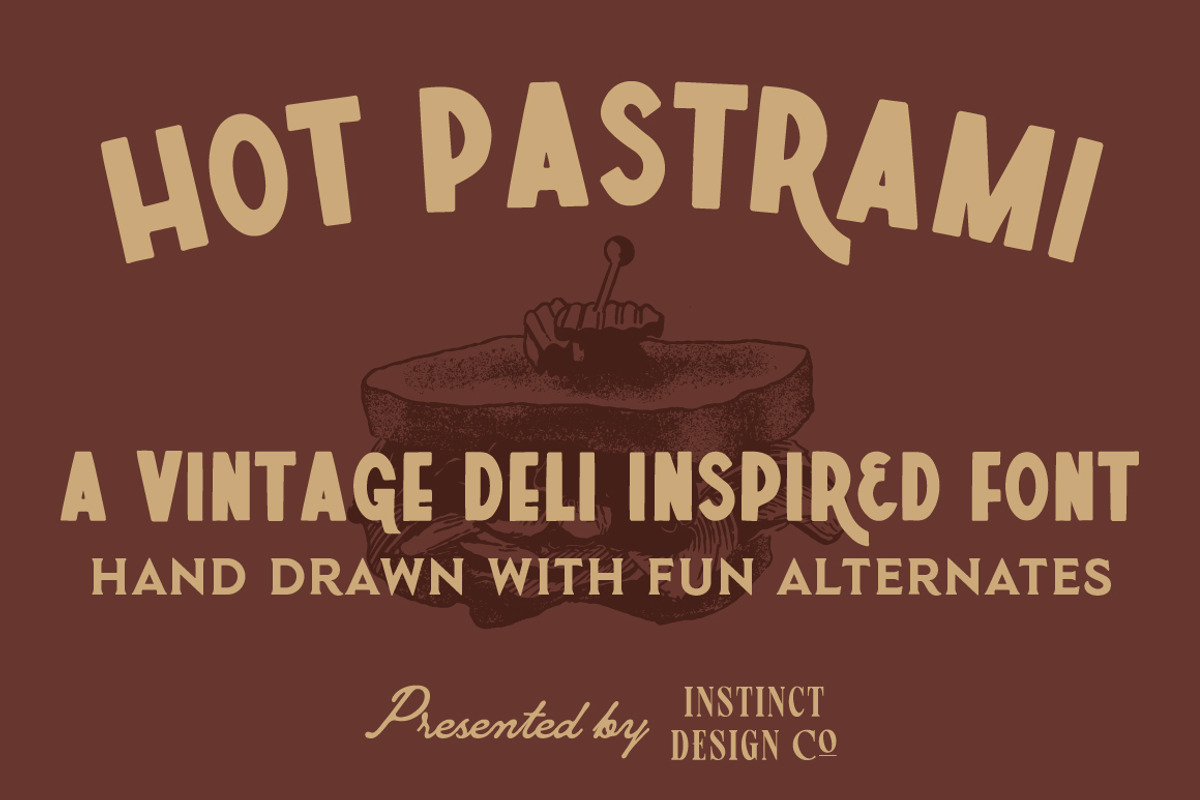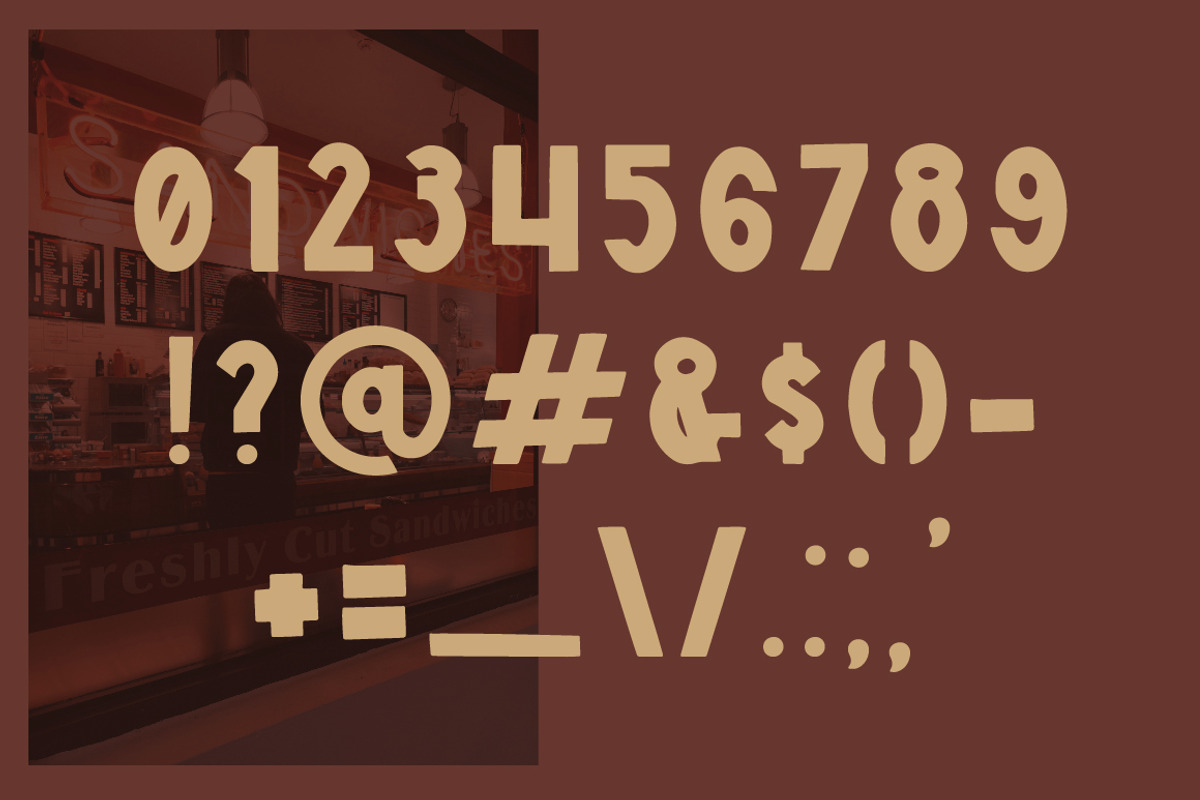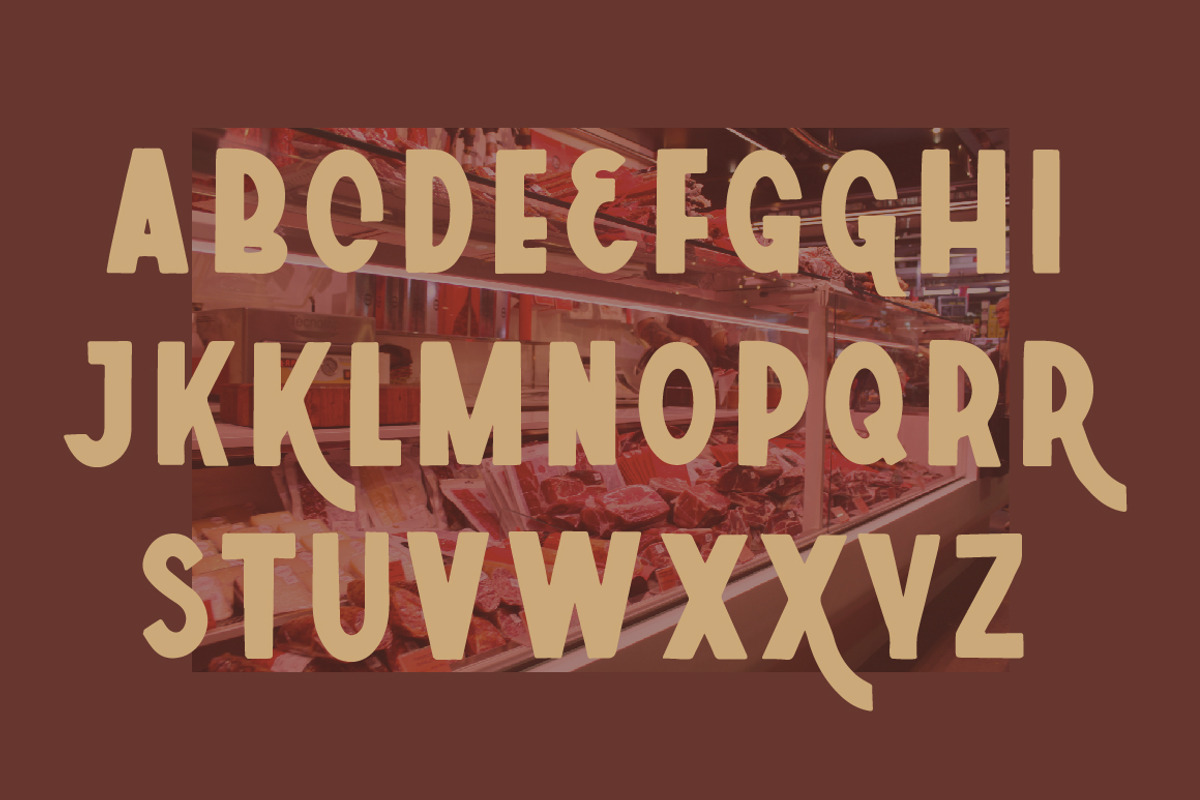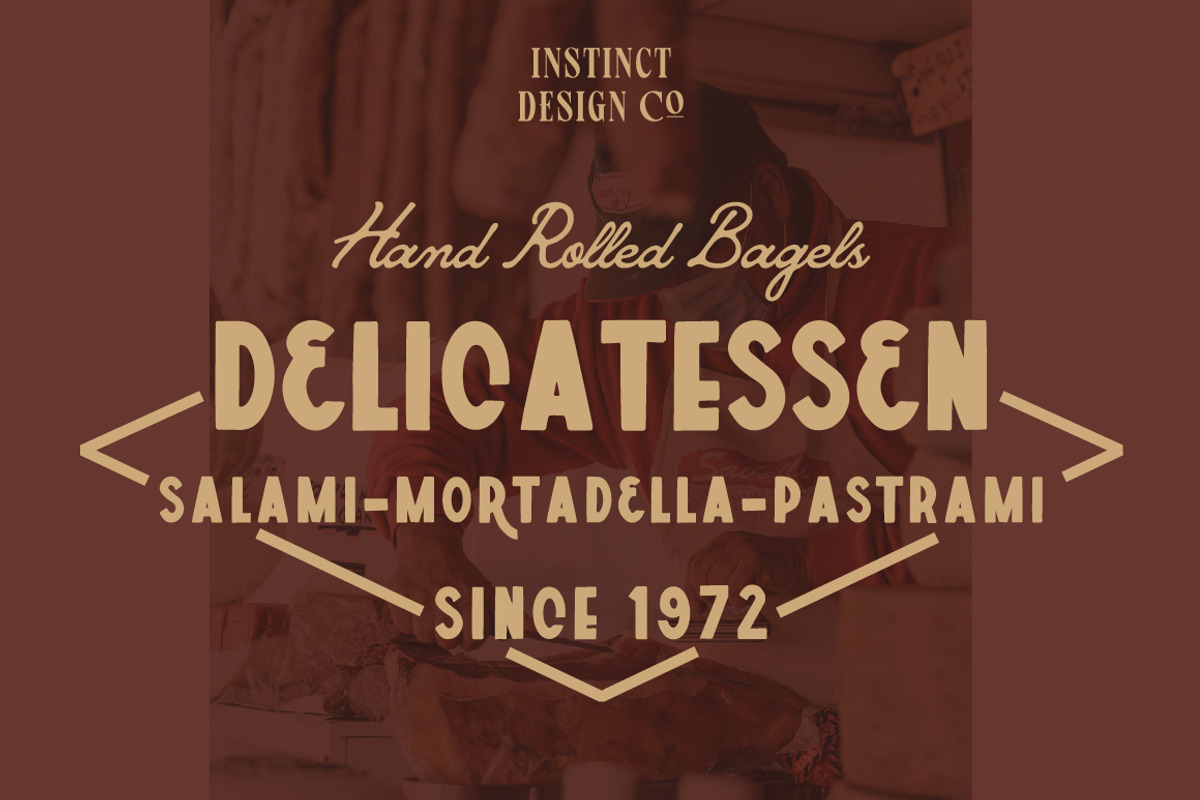
Hot Pastrami Hand Drawn Font
A fun, chunky, all-caps font drawing inspiration from vintage deli signage. Includes fun alternates to add a vintage flair to your projects.